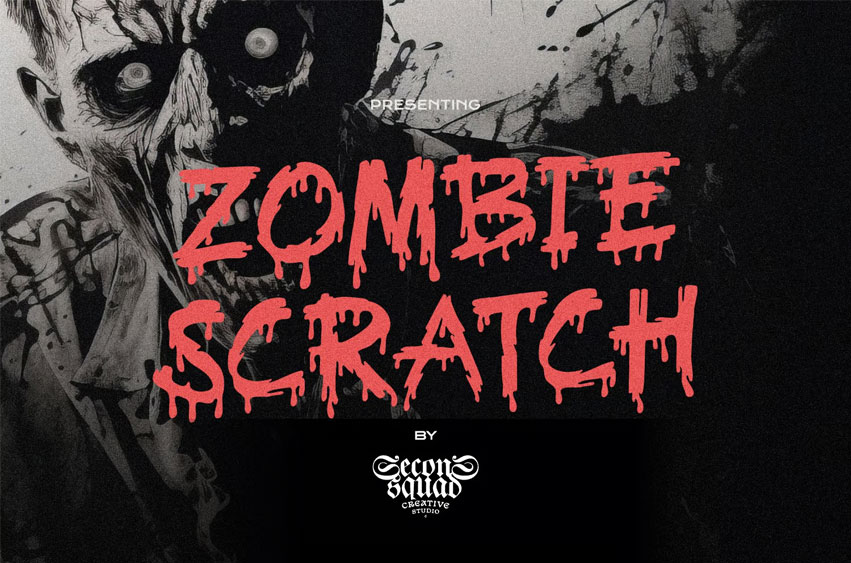
Zombie Scratch Font
Zombie Scratch Font is a haunting Halloween font carved with creepy precision and steeped in gothic horror. Its jagged, torn letterforms slash across the page like the claws of an undead beast—perfect for scary movie posters, horror book covers, thriller titles, and witchy branding that demand a touch of evil. Each character drips with spooky intensity, summoning monsters, death, and an air of dark mystery.
From haunted Halloween invitations to gothic death notes, Zombie Scratch delivers pure terror in style. Whether you’re crafting a witch’s curse poster, a deathly thriller headline, or a monster-filled horror display, this font makes fear unforgettable.